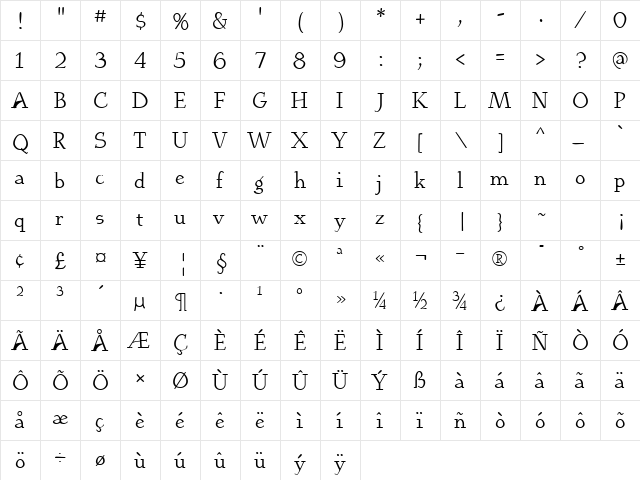
EuroikaKamp Regular
Design Context for EuroikaKamp Typeface
EuroikaKamp takes a measured approach to typography — its balanced proportions and neutral character make it a reliable workhorse for both digital and print work.